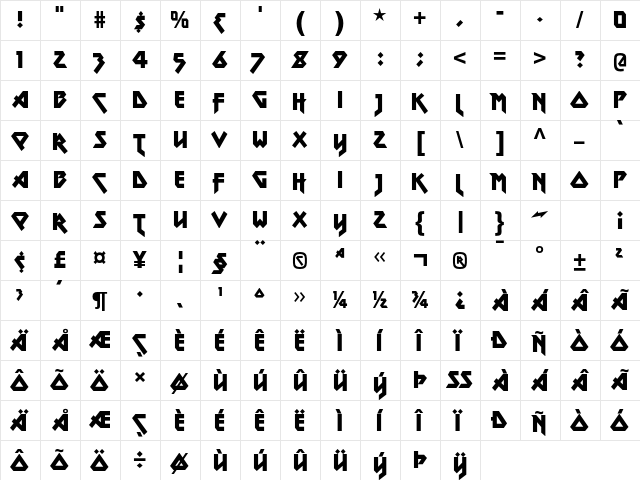
Metal Lord Regular Font Preview
Metal Lord Regular
Design Context for Metal Lord Typeface
Metal Lord is a composed and adaptable typeface that performs quietly and consistently across a wide range of design contexts.